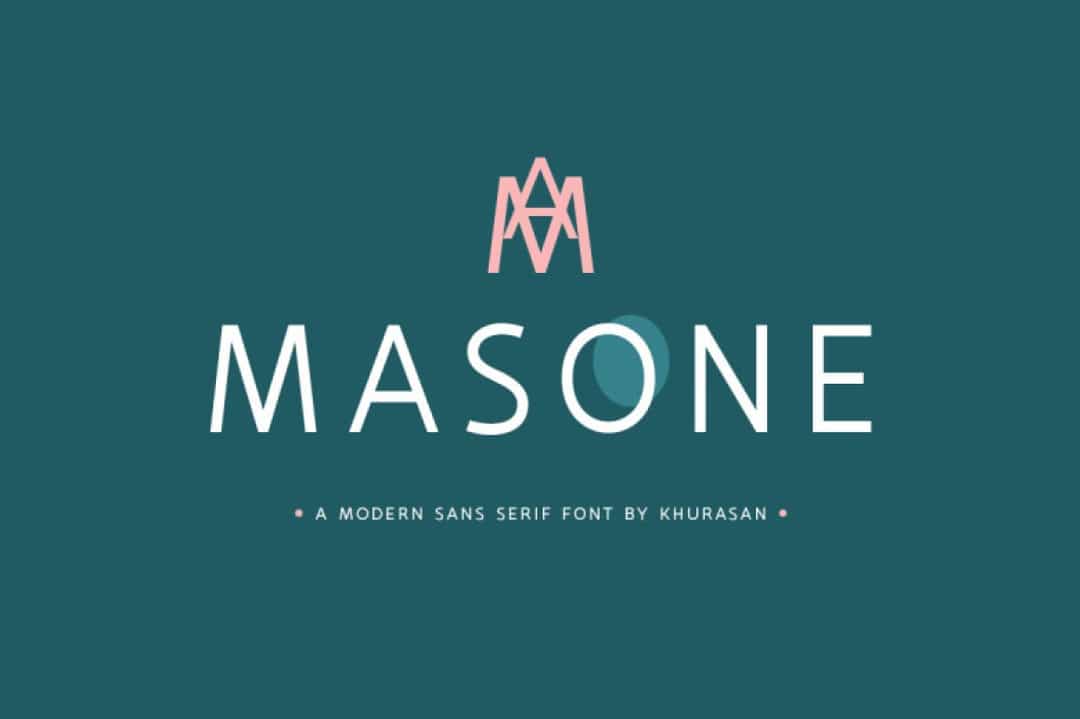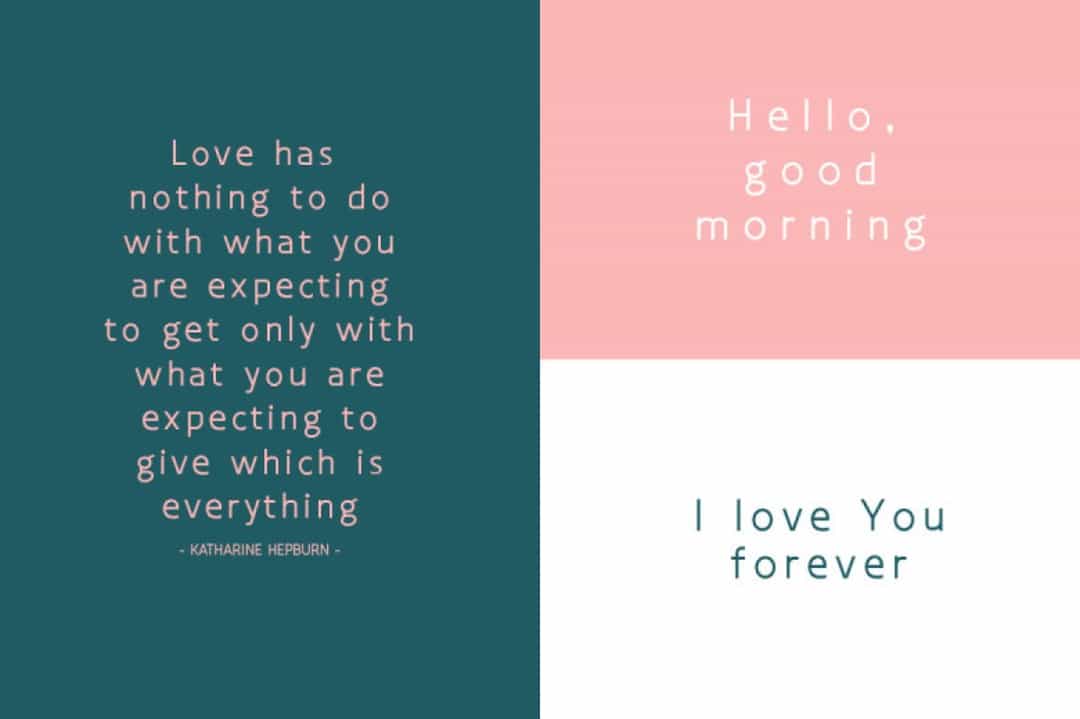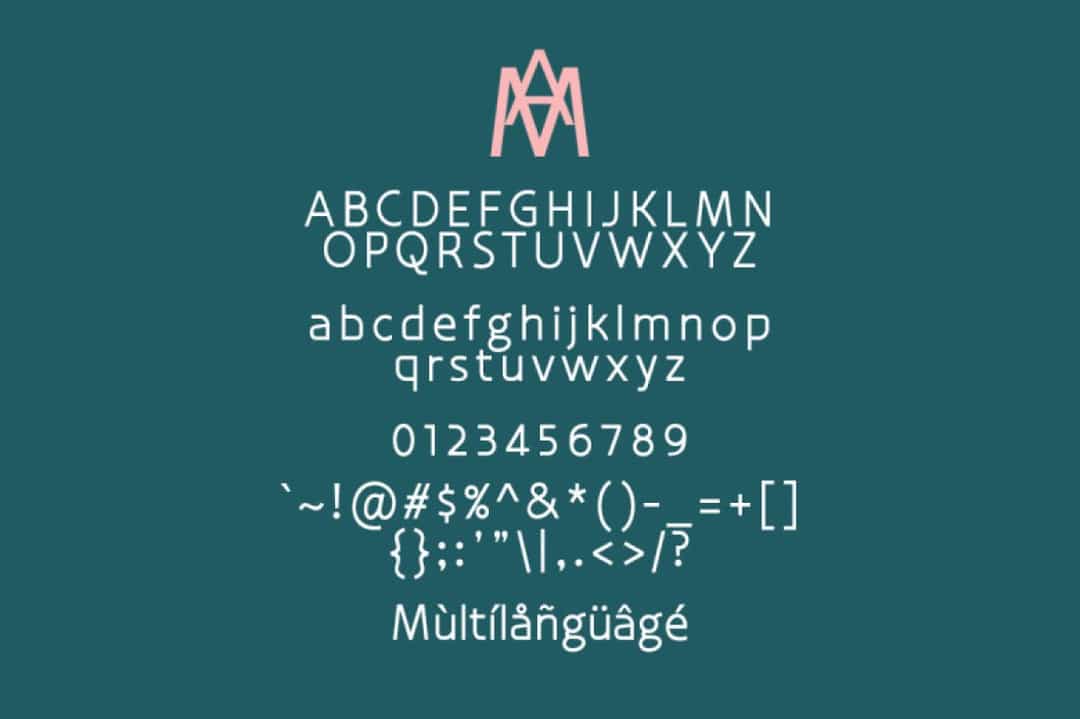
Masone Font is a stylish sans-serif font designed to enhance any creative idea. Perfect for branding, logos, posters and greeting cards as well as other designs created by you!